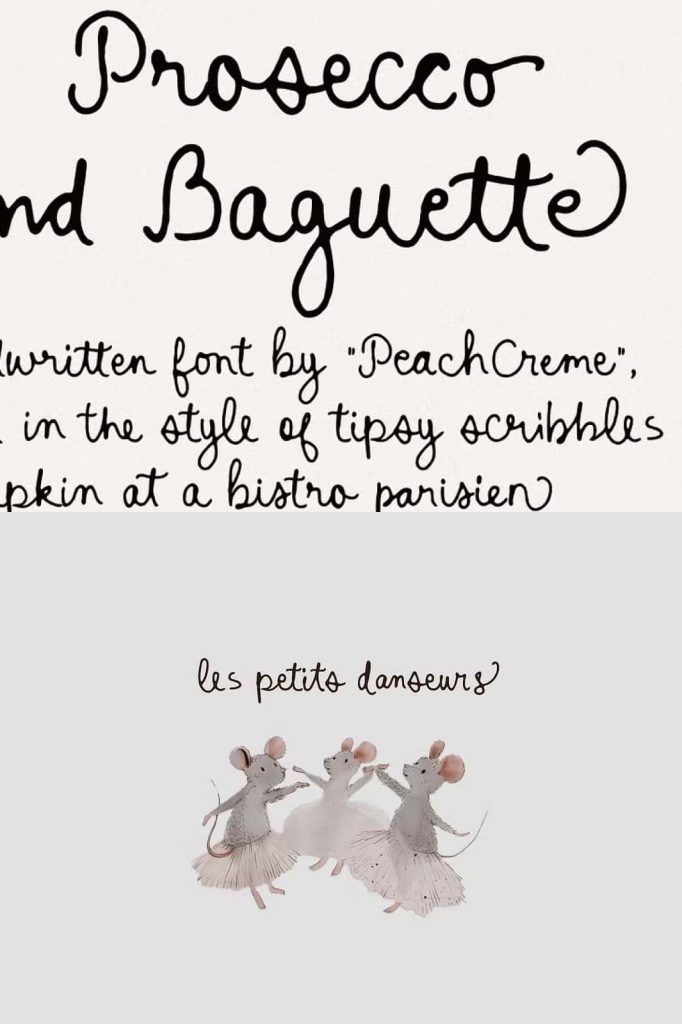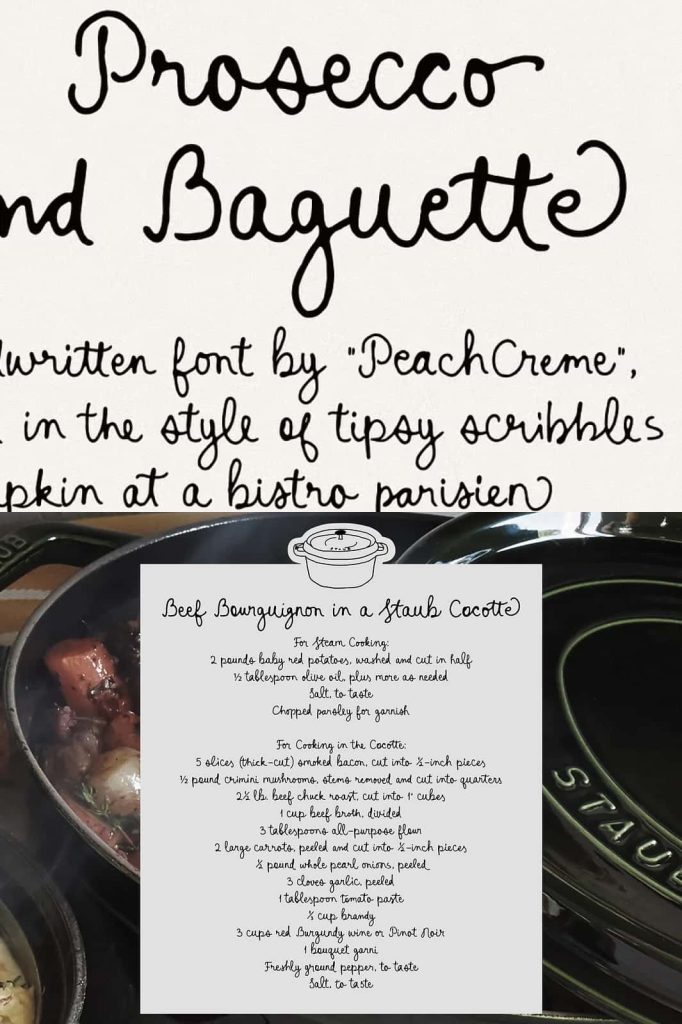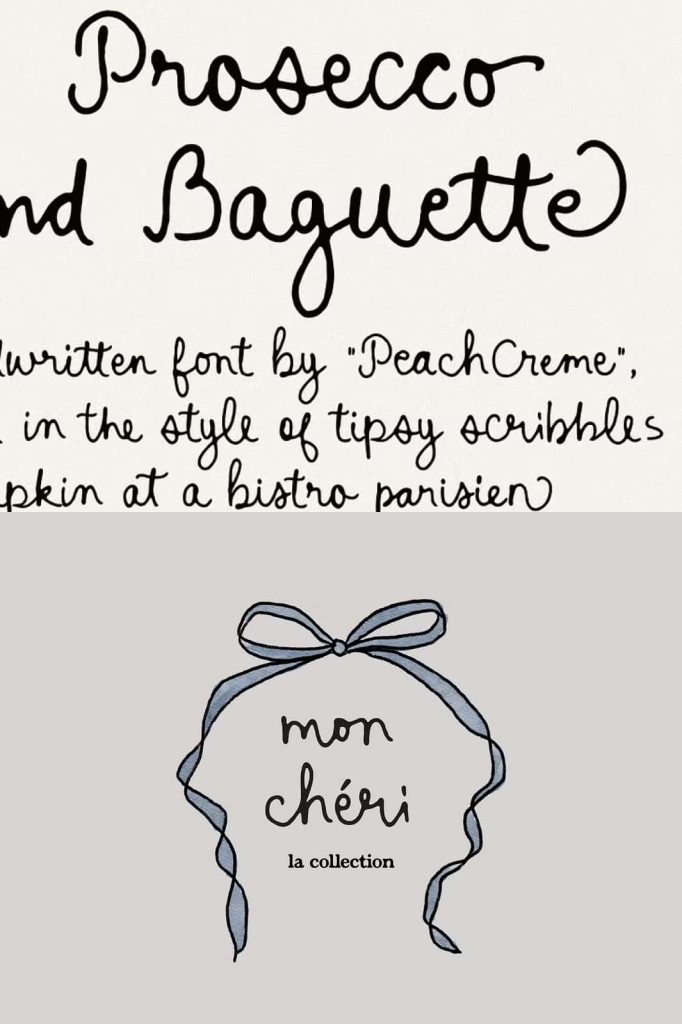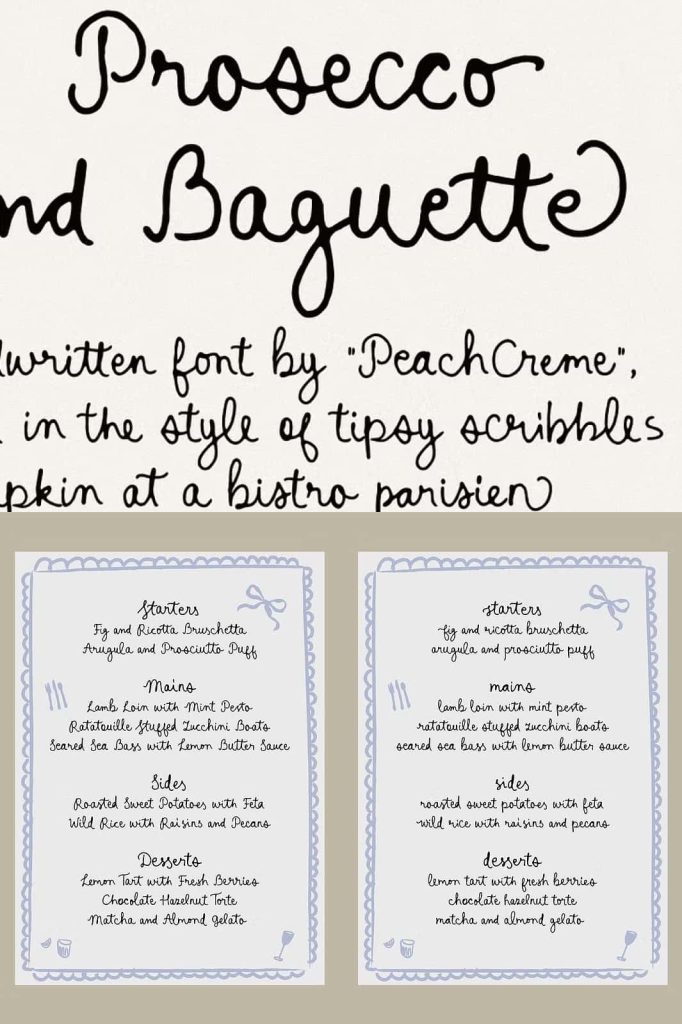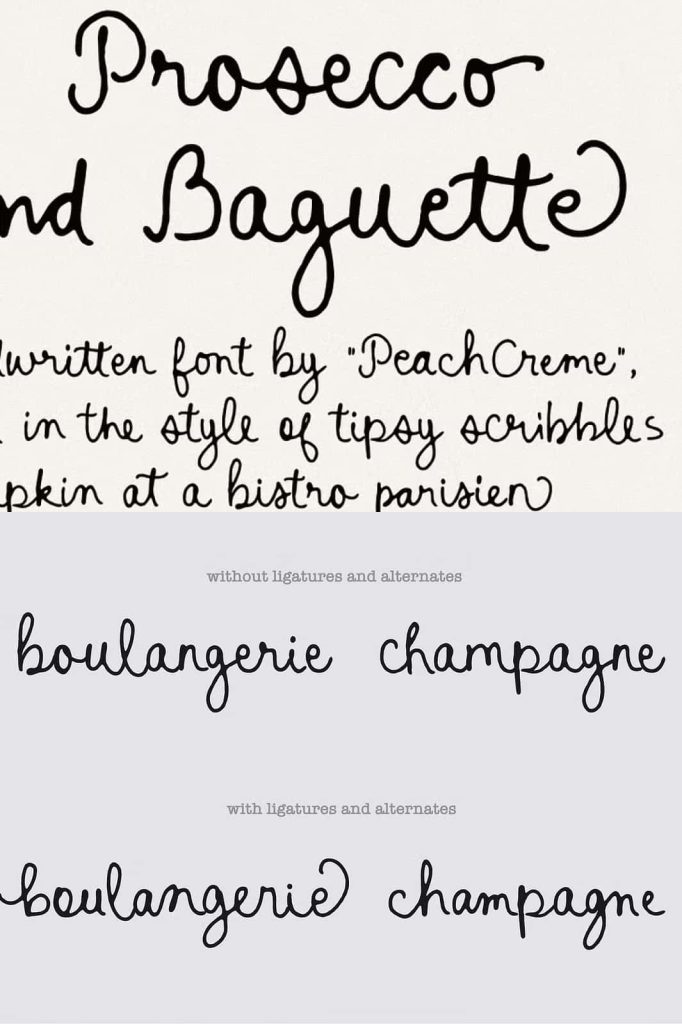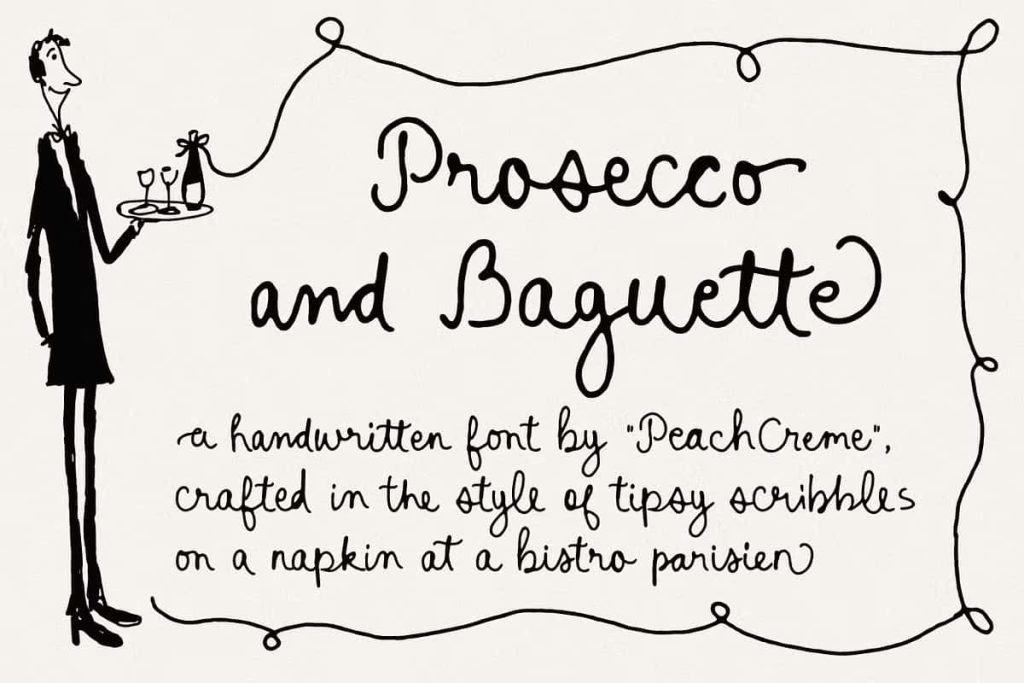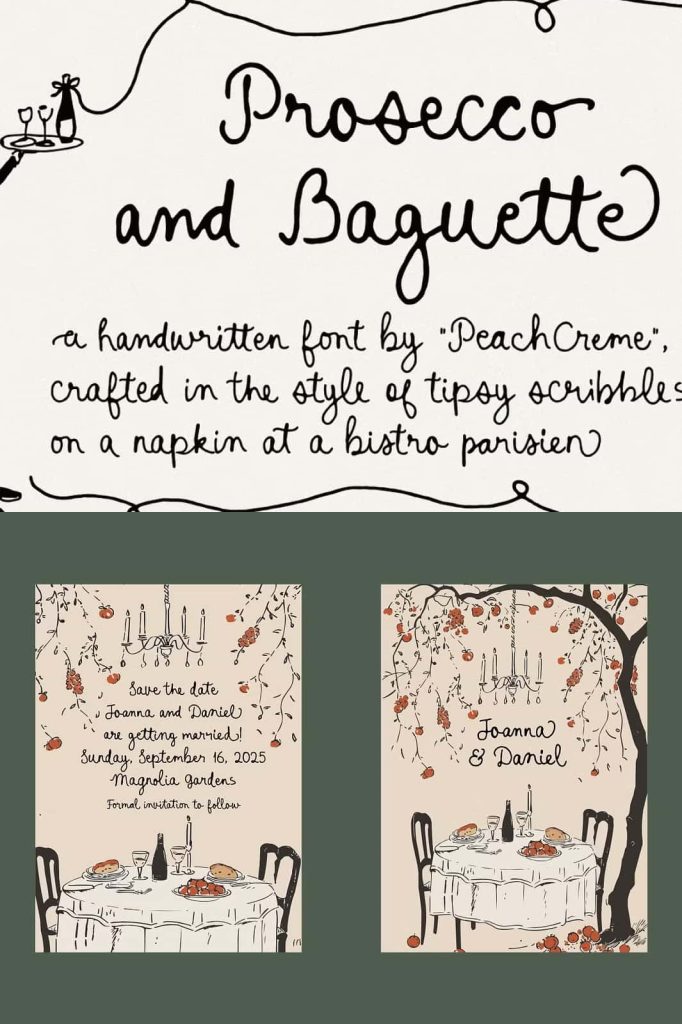
Prosecco and Baguette Font: A Natural, Handwritten Typeface with Expressive Ligatures
Prosecco and Baguette is a handwritten font created to bring the charm, spontaneity, and personality of quick handwritten scribbles into your design projects. This expressive typeface captures the effortless motion of handwriting and turns it into a highly functional design tool. With its relaxed style and natural rhythm, Prosecco and Baguette delivers a handwriting experience that feels authentic, warm, and visually engaging.
A Font that Embraces the Look of Casual Scribbles
This font stands out for its bold embrace of handwritten spontaneity. It mirrors the beauty found in simple notes, quick reminders, and fast sketches, creating a sense of immediacy and personality. Instead of feeling polished or overly refined, Prosecco and Baguette intentionally preserves small quirks, irregularities, and handwritten textures. These qualities help your text feel more human, more accessible, and more relatable.
Designers often seek a handwritten font that feels genuine rather than artificial, and this font offers exactly that. The strokes flow with natural motion, and each character carries a subtle variation that contributes to the overall handwritten charm. The result is a typeface that effortlessly elevates your message with authenticity and expressive movement.
Featuring 168 Ligatures for Fluid, Connected Text
One of the strongest features of Prosecco and Baguette is its impressive set of 168 ligatures. These ligatures create smooth transitions between letter pairs and enhance the sense of natural handwriting. Instead of static, disconnected letters, the ligatures allow your text to flow with ease and visual continuity. This creates a more immersive reading experience and gives your designs a polished but still organic look.
The variety of ligatures also makes the font extremely versatile. You can rely on it for long paragraphs where legibility and flow are important, or use it for short phrases that need expressive style. The stylistic connectivity of the font ensures that each word feels intentional and fluid, offering an elevated handwritten effect that feels dynamic and natural.
An Excellent Choice for Branding, Invitations, and Creative Design
Prosecco and Baguette excels in projects that require personality and warmth. Its expressive handwritten nature makes it suitable for branding concepts that seek to communicate authenticity and character. Artisan shops, boutique products, lifestyle brands, and creative studios benefit from the approachable style of this font. When used in logos or packaging, the typeface reinforces a handcrafted identity and strengthens the emotional connection with audiences.
The font also shines in printed materials such as invitations, greeting cards, labels, and event signage. Its casual but elegant handwritten flow adds a personal touch that makes each piece feel thoughtful and unique. Whether crafting wedding invitations, personalized stationery, or decorative prints, Prosecco and Baguette enhances the emotional tone of your message.
Perfect for Social Media Content, Quotes, and Everyday Use
In the digital landscape, expressive typography can significantly impact viewer engagement. Prosecco and Baguette performs exceptionally well on social media platforms where natural, handmade aesthetics are highly appreciated. Use it to create uplifting quotes, attention-grabbing captions, or promotional graphics. The handwritten style adds a sense of honesty and intimacy, making your content feel more genuine and relatable.
Beyond branding and online content, the font adapts beautifully to planners, journals, DIY projects, scrapbooks, and personal creative work. Its relaxed style encourages creativity, helping you craft designs that feel spontaneous yet visually appealing.
Enhance Your Creative Workflow with Prosecco and Baguette
Prosecco and Baguette is more than a simple handwritten font. It is a carefully crafted typeface that combines expressive strokes, strong handwritten character, and a rich collection of ligatures to create natural, flowing text. Its ability to mimic the ease and charm of casual handwriting makes it a valuable resource for designers across various fields.
Whether you need a typeface for branding, digital content, elegant invitations, or creative print projects, Prosecco and Baguette offers the perfect balance of personality, readability, and stylistic versatility. Allow this handwritten font to elevate your message, strengthen your visual storytelling, and bring authenticity to everything you create.